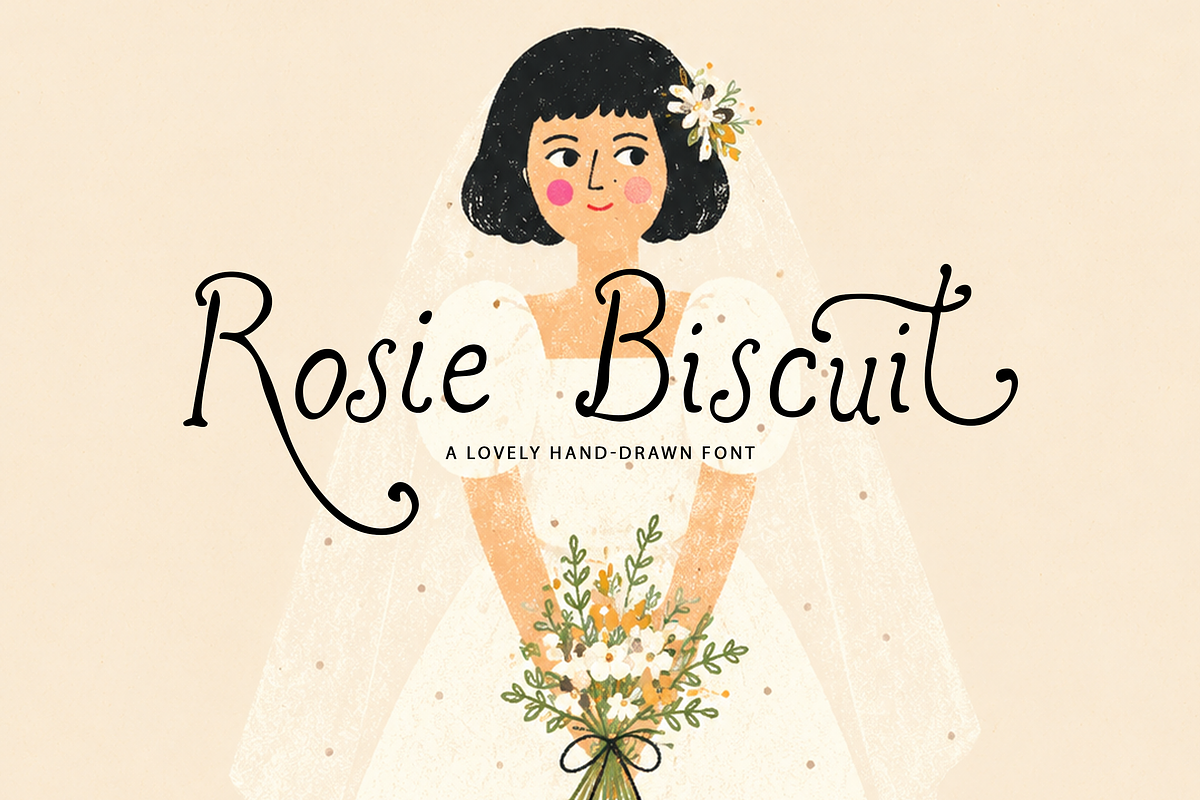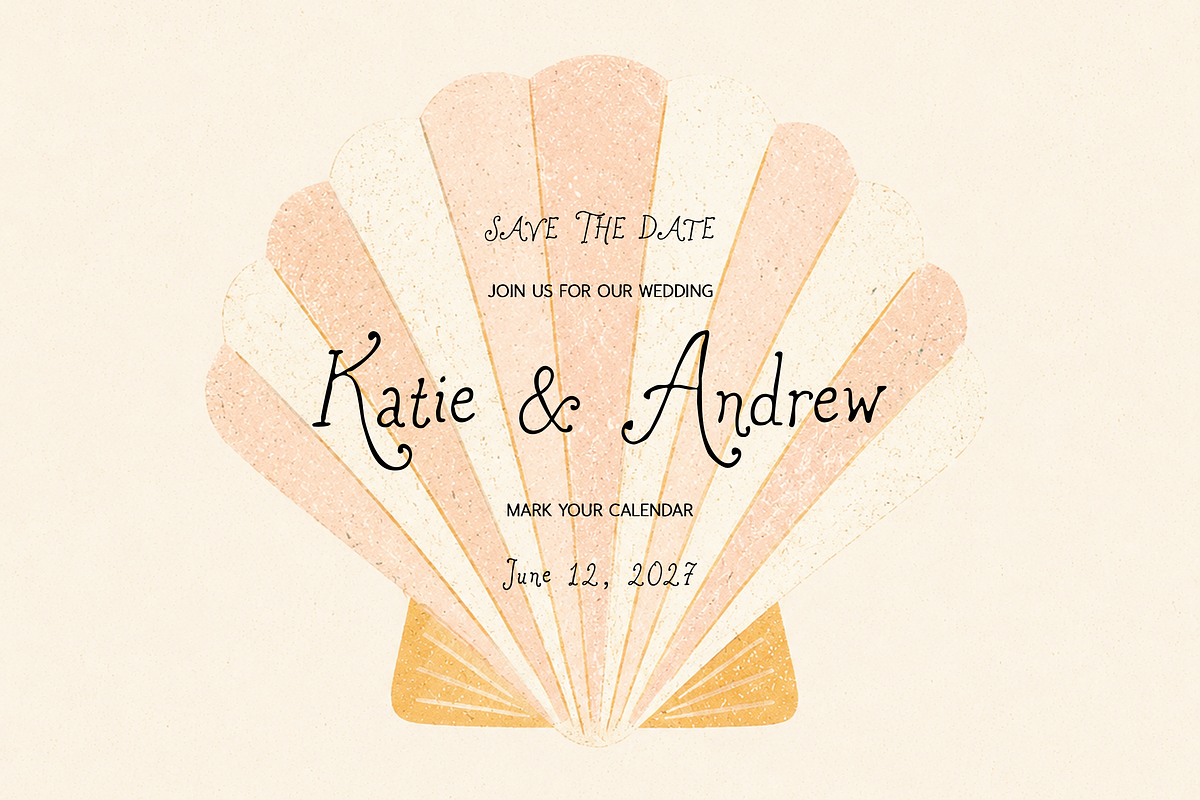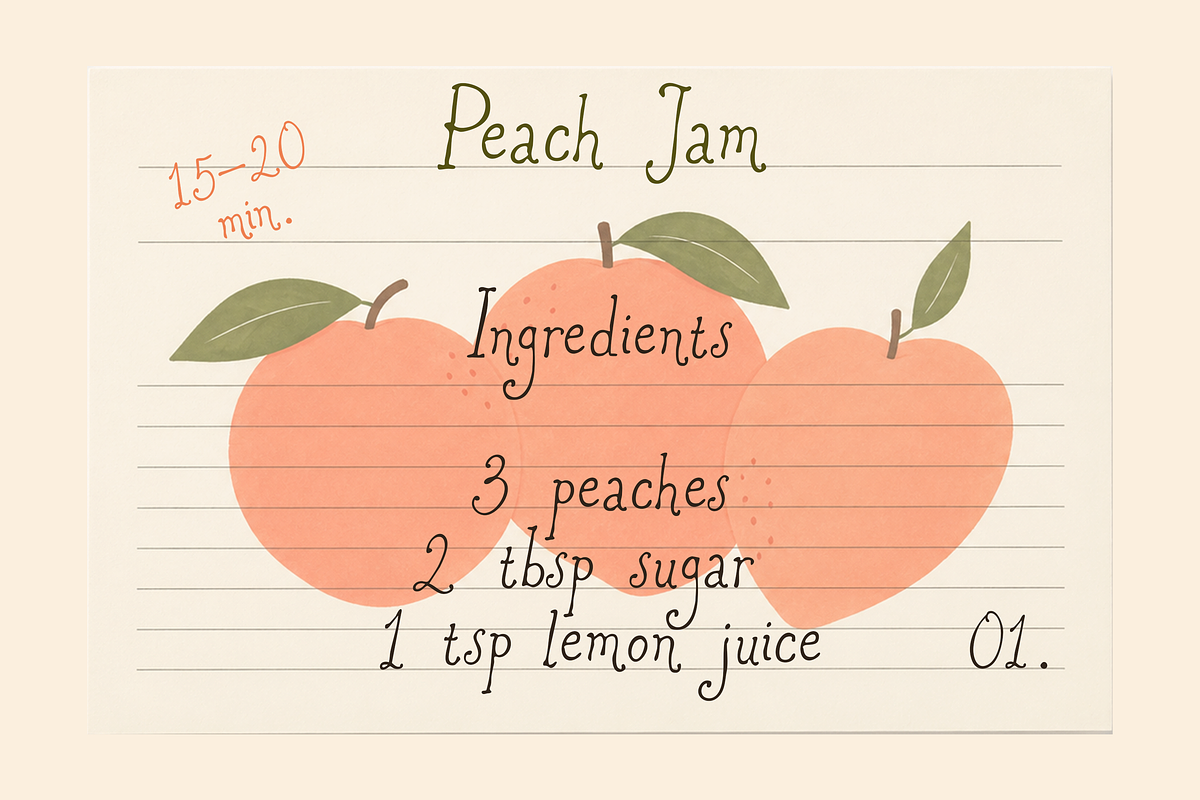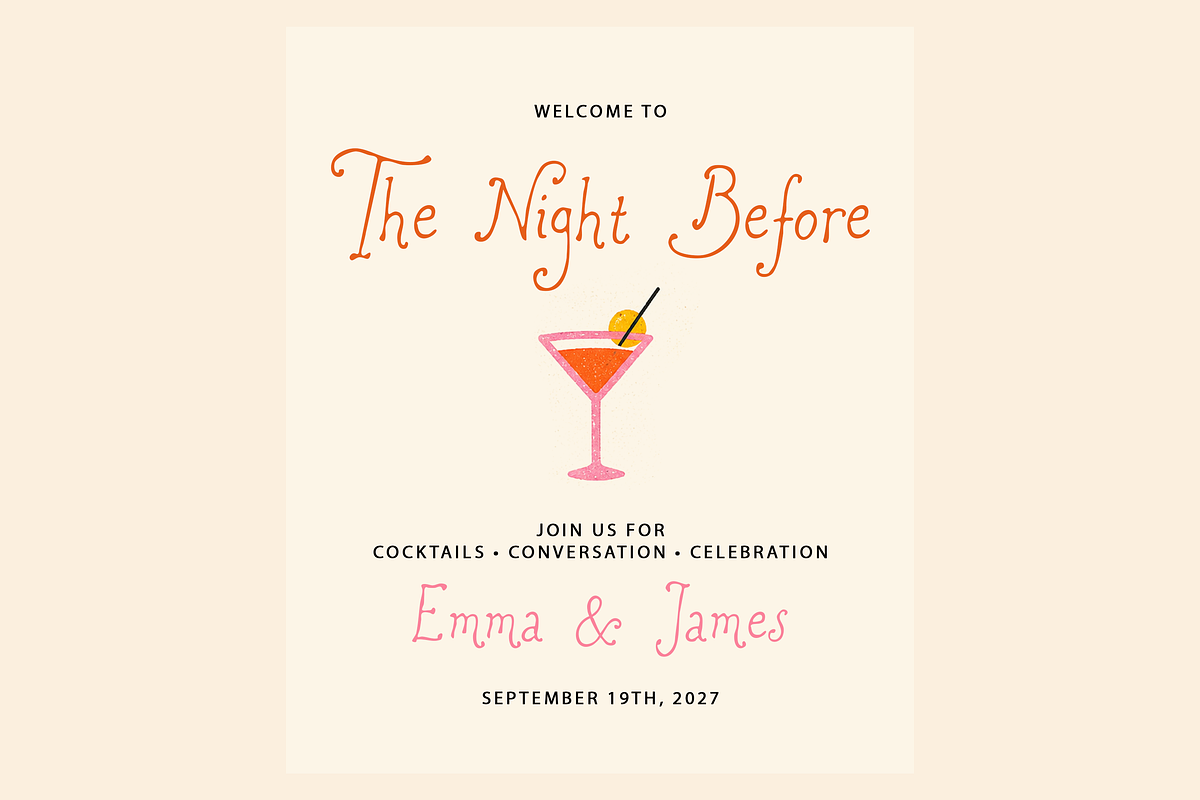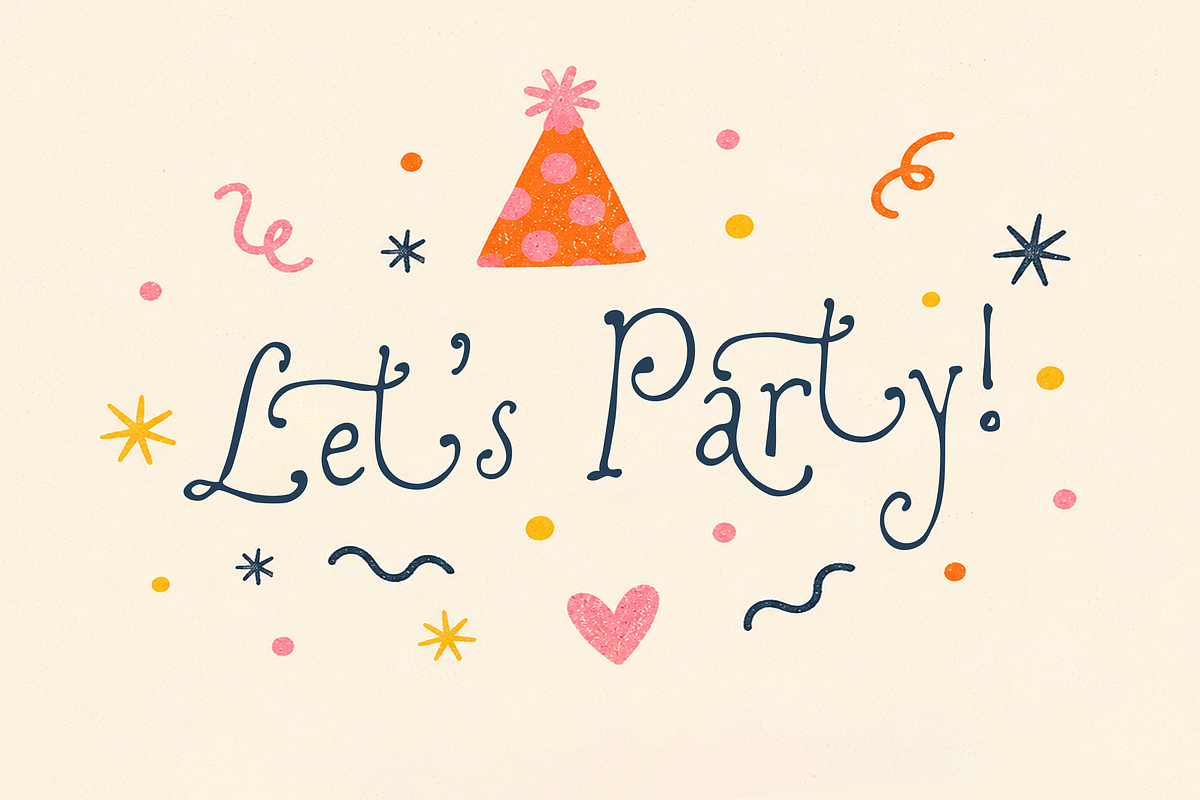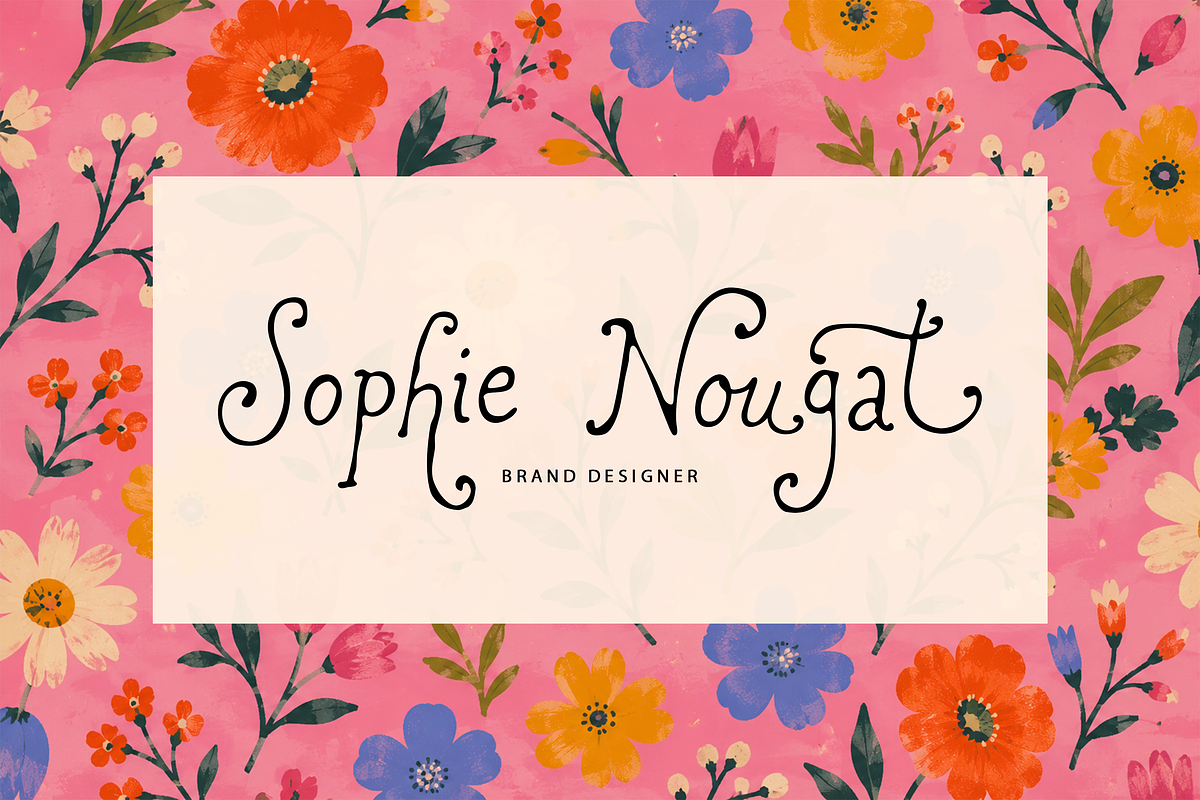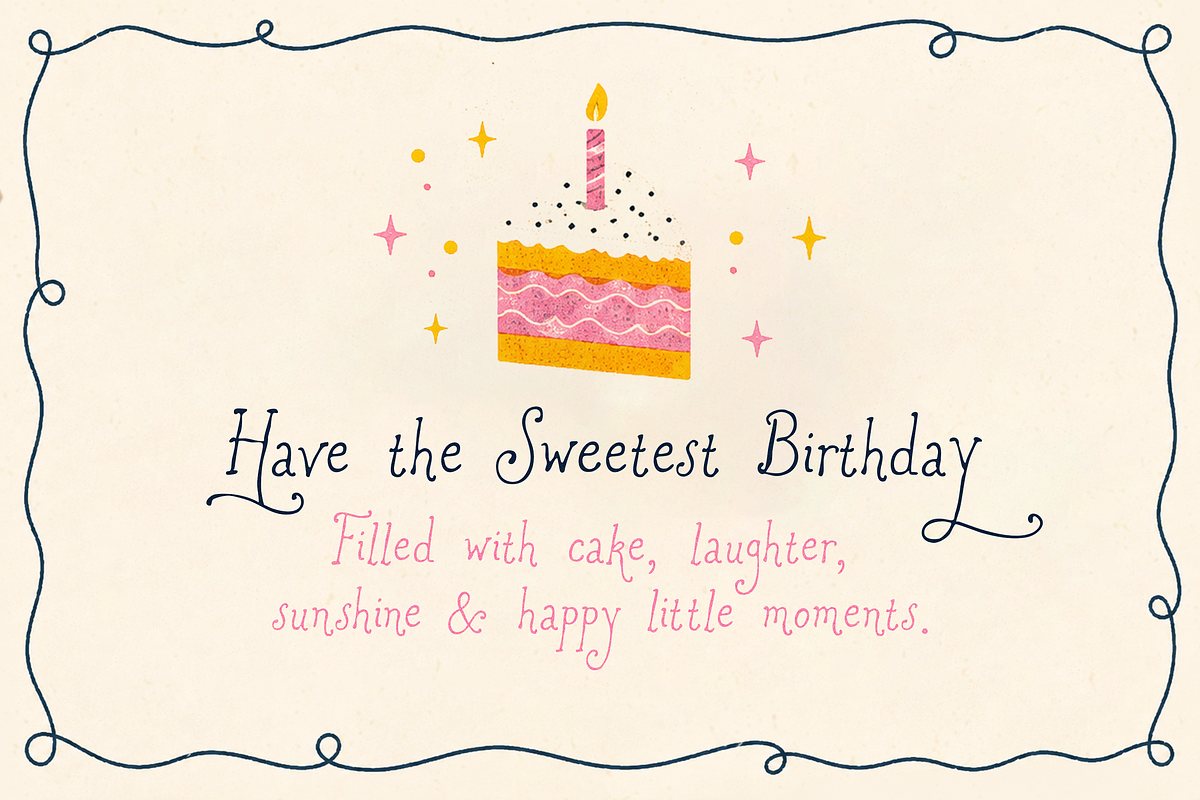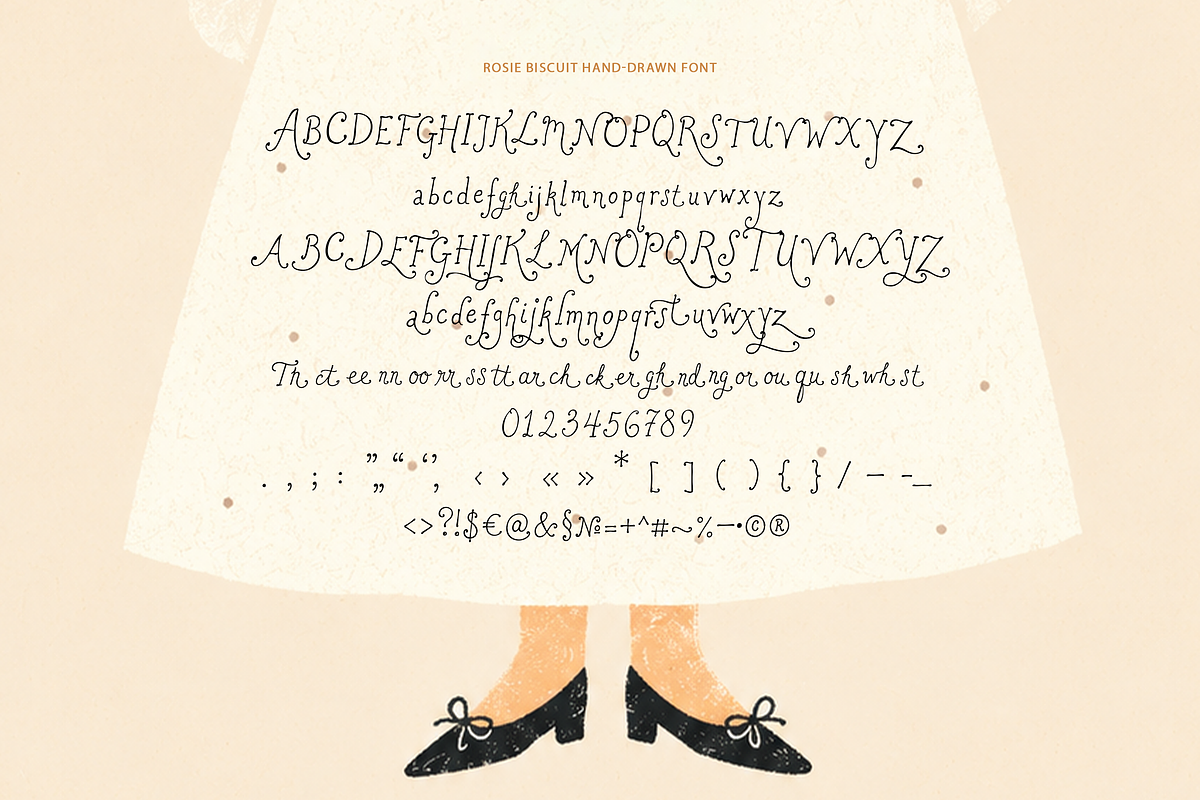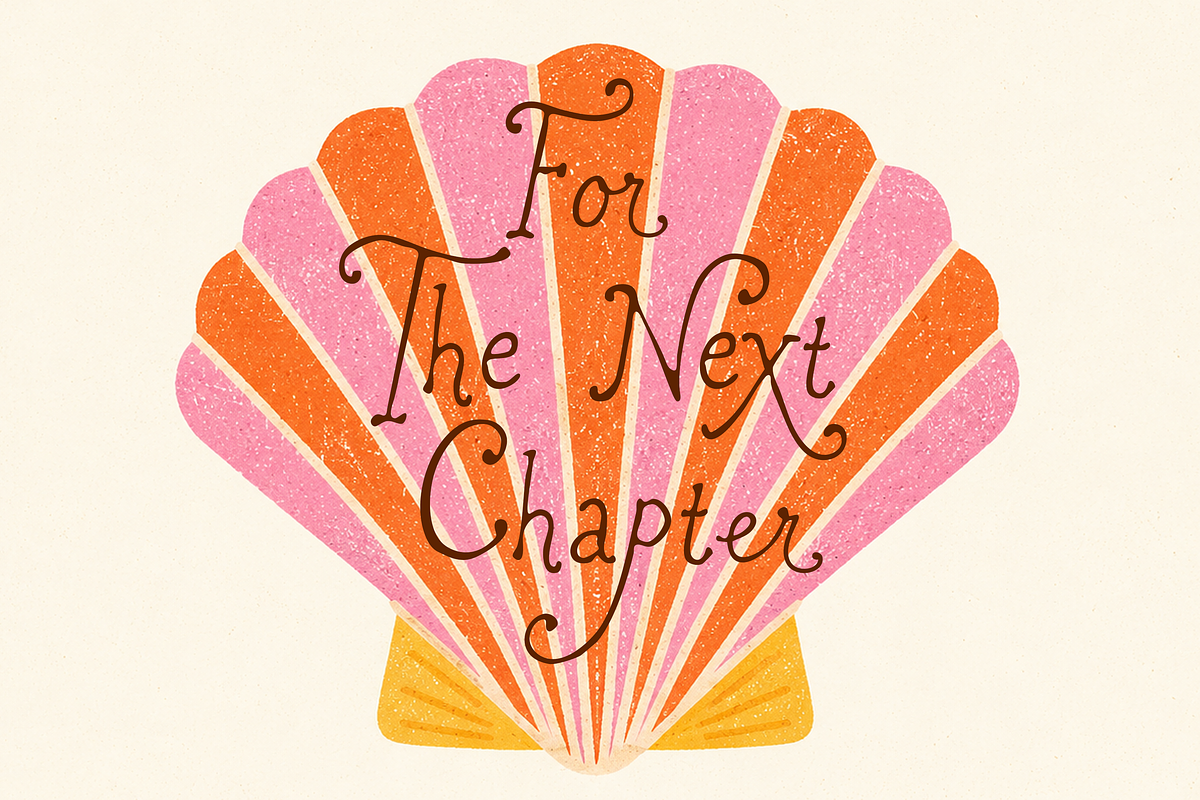
Rosie Biscuit Cute Handwritten Font
Meet Rosie Biscuit, a whimsical hand-drawn font full of warmth, personality, and playful charm. Inspired by storybooks, vintage illustrations, handmade crafts, and joyful celebrations, this font brings an authentic handwritten feel to every project.
Rosie Biscuit is perfect for designers, creatives, and small businesses looking for a unique typeface with a soft, friendly character. Whether you're designing wedding stationery, children's books, greeting cards, branding, packaging, or social media graphics, this font adds a delightful handmade touch.
Its charming curves, playful alternates, and natural imperfections make every word feel personal and full of life.
Perfect for
• Wedding invitations
• Save the Date cards
• Bridal shower & baby shower invitations
• Greeting cards
• Birthday invitations
• Children's books
• Nursery prints
• Party decorations
• Logos & branding
• Packaging design
• Stickers & labels
• Scrapbooking
• Instagram & Pinterest graphics
• Canva templates
• Cricut & Silhouette projects
• Posters & wall art
• Quotes & typography prints
• Handmade products